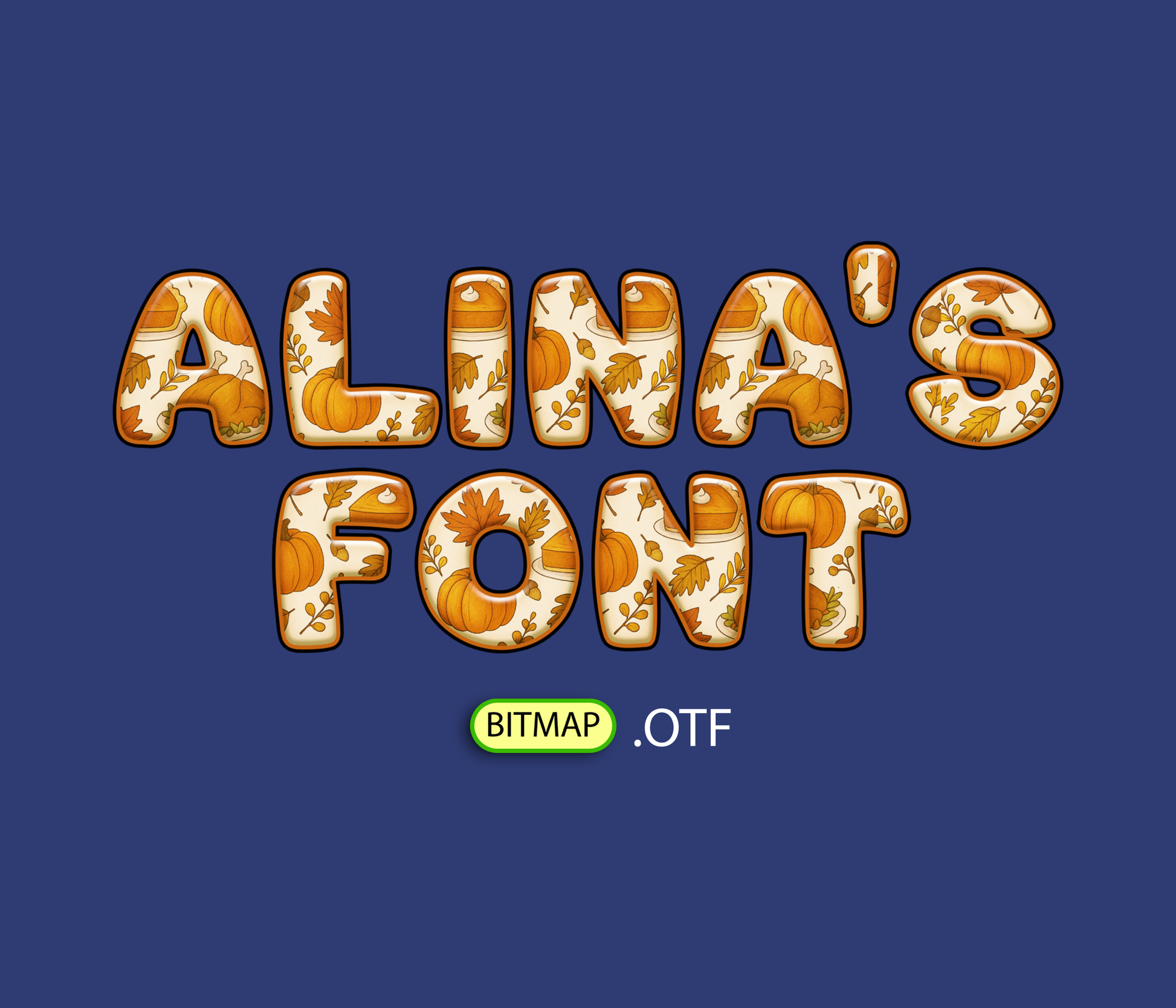
FREE Harvest Gratitude Pattern Font
Harvest Gratitude Typeface Textured
Celebrate the warmth and abundance of Thanksgiving traditions with our Harvest Gratitude Typeface, capturing the essence of family gatherings and autumn blessings. Perfect for restaurants, event planners, greeting card companies, and creative professionals, this font brings the cozy, grateful spirit of turkey dinners and pumpkin patches to your projects. Create inviting signage, Thanksgiving-themed products, or digital content with the rich, seasonal essence of cornucopias and golden leaves.
Our Harvest Gratitude Typeface features rustic, farm-inspired flourishes and warm characters reflecting the traditional yet festive aesthetic of Thanksgiving celebrations. Ideal for:
- Restaurant Industry: Create appealing logos, packaging, and promotional materials for farm-to-table restaurants, bakeries, and Thanksgiving catering services
- Holiday Design: Perfect for Thanksgiving invitations, autumn decorations, and celebration materials that capture the spirit of gratitude and togetherness
- Digital Media: Enhance websites, blogs, and social media with warm headers and graphics that express thankfulness and seasonal joy
- Greeting Cards: Add authentic character to Thanksgiving cards, recipe collections, and promotional materials for harvest-themed products
- Personal Projects: Bring autumn charm to family recipe books, craft projects, and home decor inspired by the aesthetics of Thanksgiving traditions